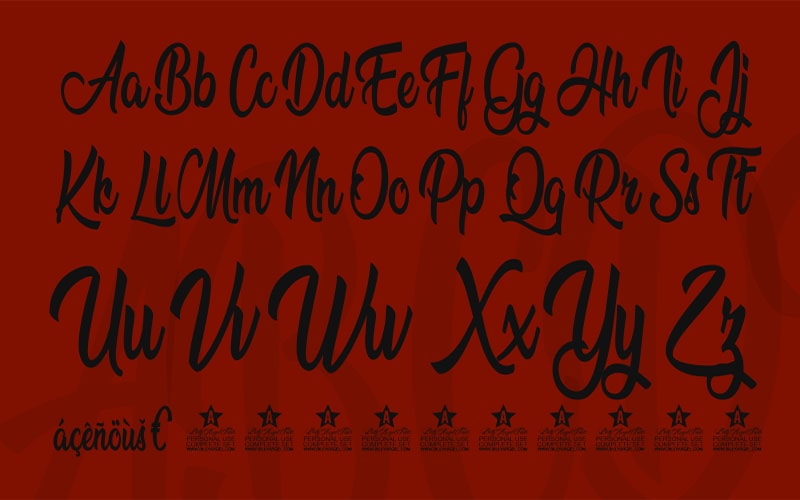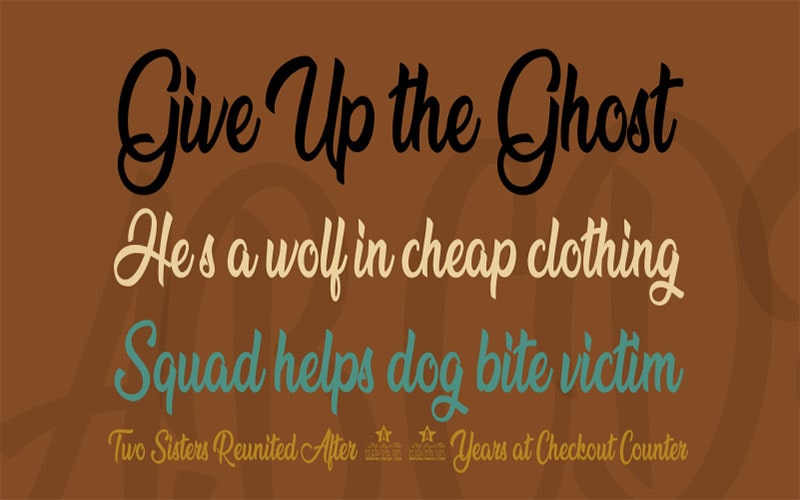
Amandita Font is a beautifully crafted typeface that embodies elegance and versatility. Its sophisticated design and functional adaptability make it a perfect choice for a wide range of creative projects.
This typeface was designed by a renowned typographer Billy Argel Fonts. Inspired by classic calligraphy and modern design trends, Amandita Font aims to offer a timeless and sophisticated look.
The Font family comprises several styles such as Amandita Regular, Amandita Bold, Amandita Italic, and Amandita Bold Italic to cater to different design needs.
Each typeface maintains the distinctive characteristics of the font, providing variations in weight and style to enhance its versatility and usability. The standard style is ideal for body text and general usage.
| Font Name: | Amandita Font |
| Style: | Script, Calligraphy, Typeface |
| Font Designer: | Billy Argel Fonts |
Features sophisticated curves and refined lines, ensuring a timeless and elegant aesthetic. Supports a wide range of languages, enhancing its versatility for global use.
Amandita Font is an exceptional choice for designers seeking a typeface that blends elegance with versatility. It offers multiple styles to cater to different design needs and preferences.